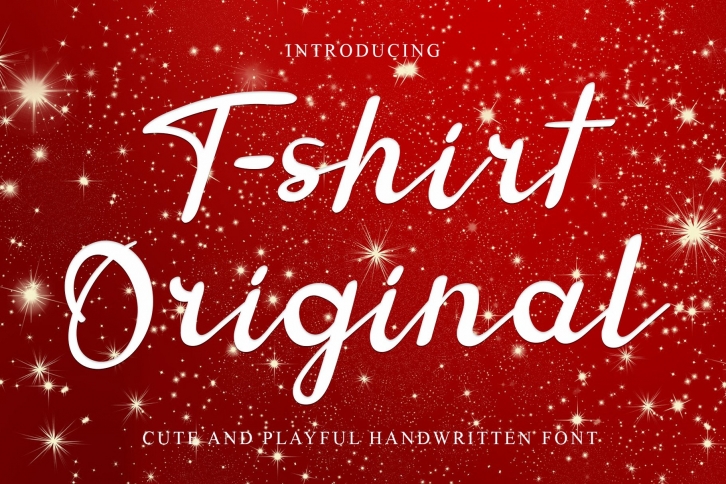
T-shirt Original is a lovely and delicate script font that exudes elegance and class. This font was particularly crafted for those who need a beautiful and refreshing look to their designs.Â